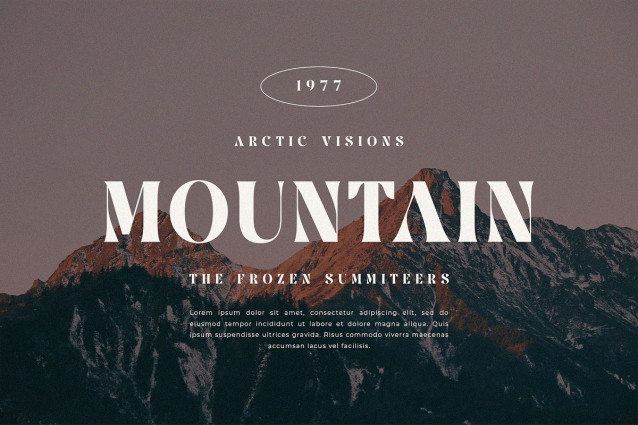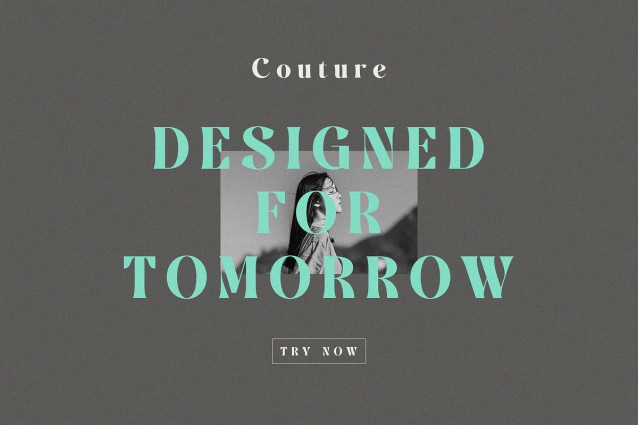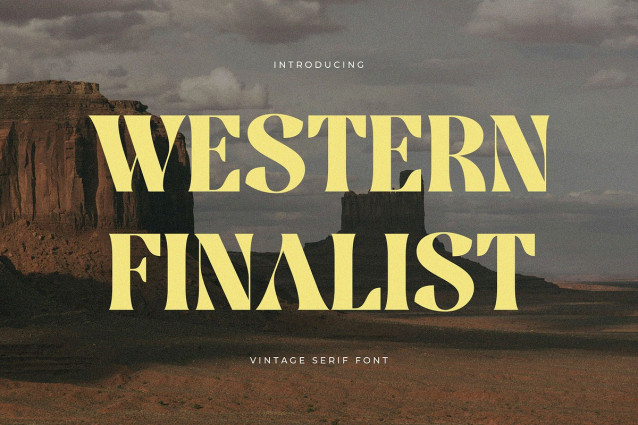
Western Finalist Font
Western Finalist Font is a bold and rugged vintage serif display font inspired by classic Western typography. With dramatic curves, strong serifs, and high-contrast letterforms, this typeface brings an authentic retro feel that’s perfect for cowboy-themed posters, Americana branding, whiskey labels, outdoor gear, and editorial titles.
Blending timeless western aesthetics with modern display design, Western Finalist gives your projects a nostalgic, cinematic character — ideal for capturing attention and evoking adventure.